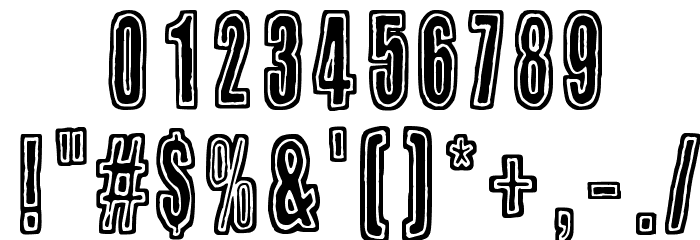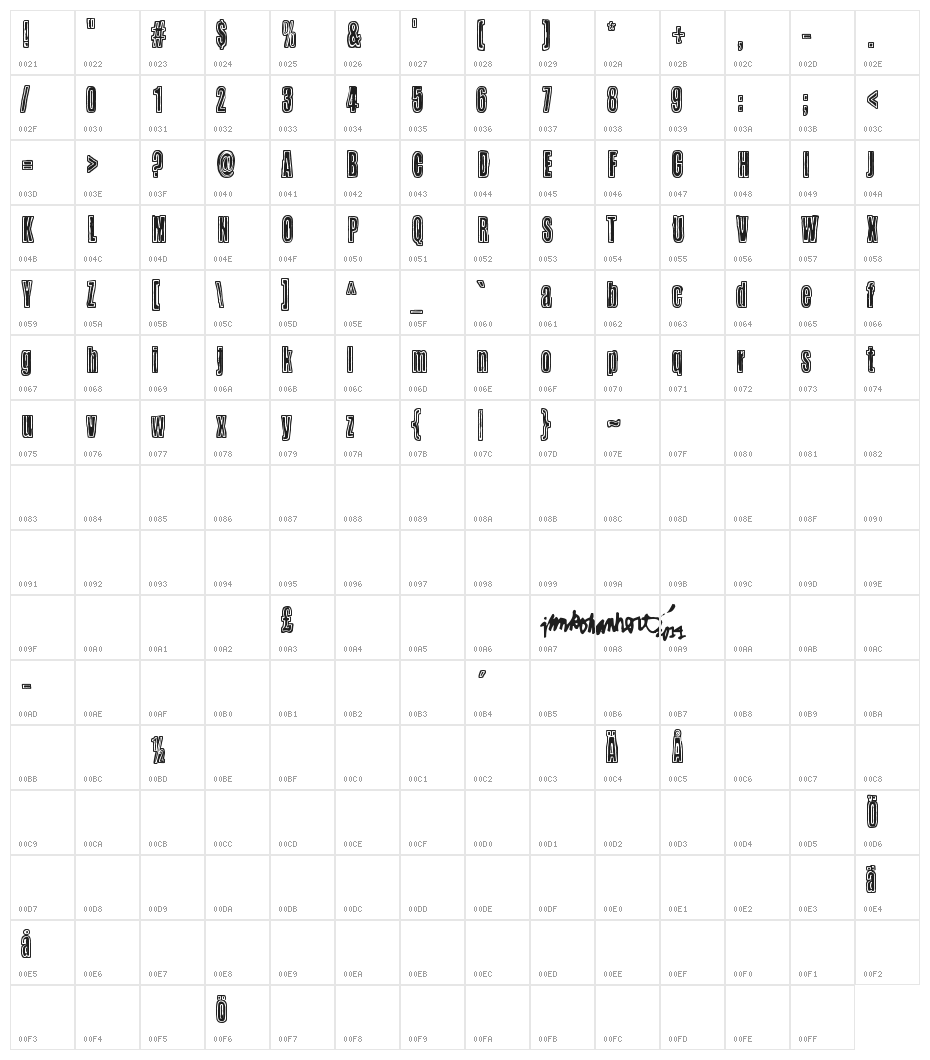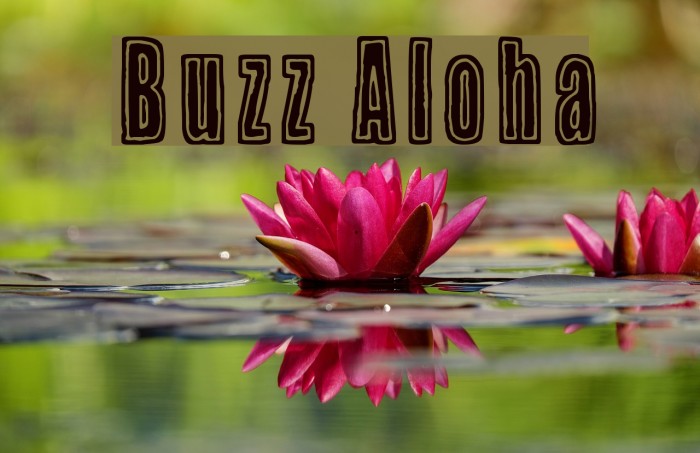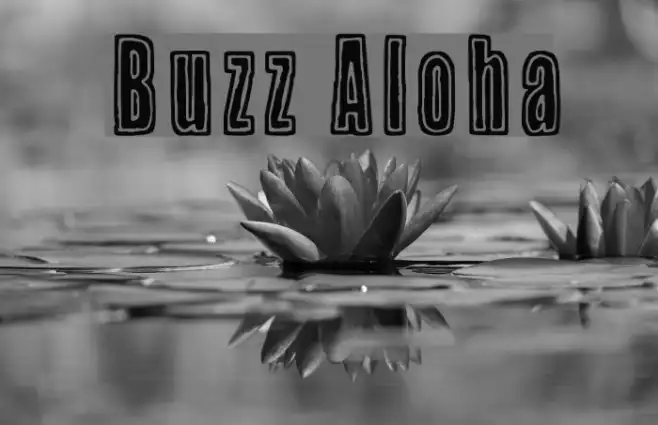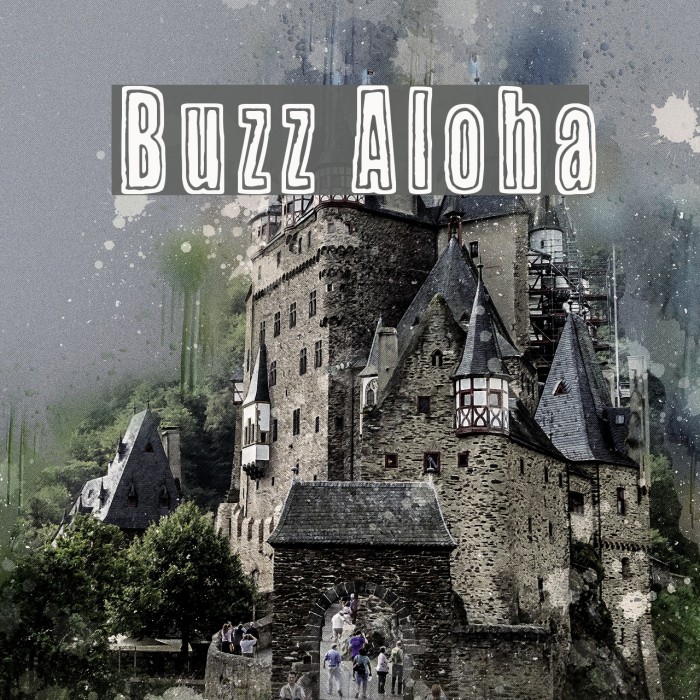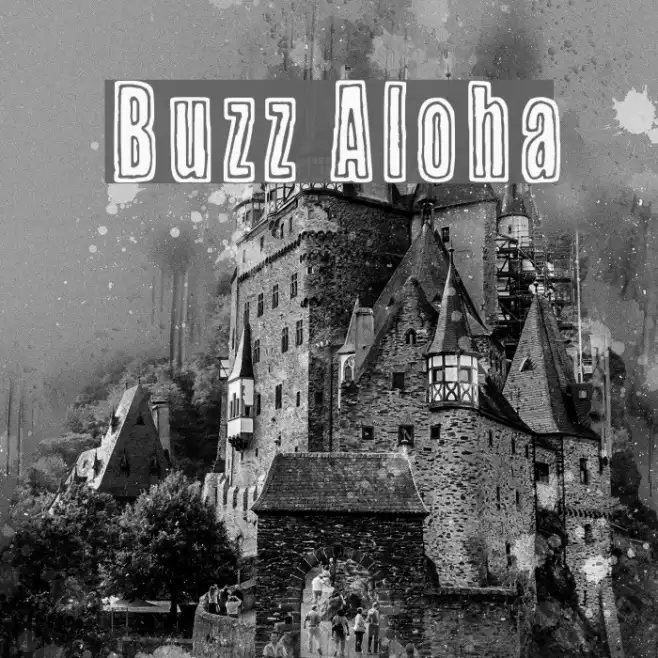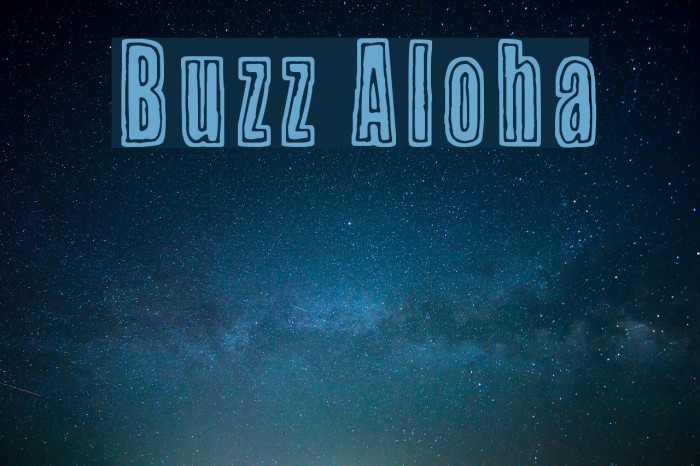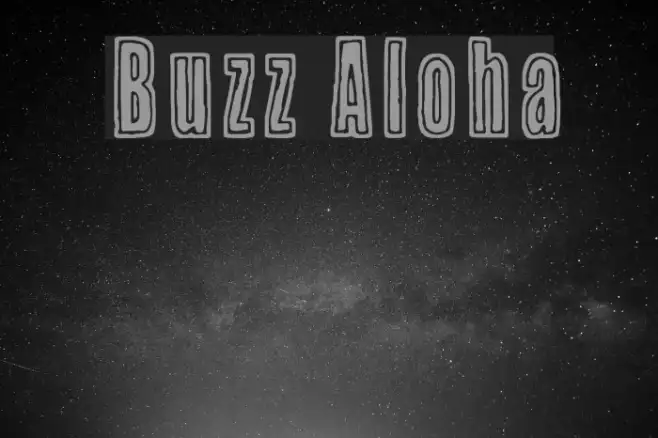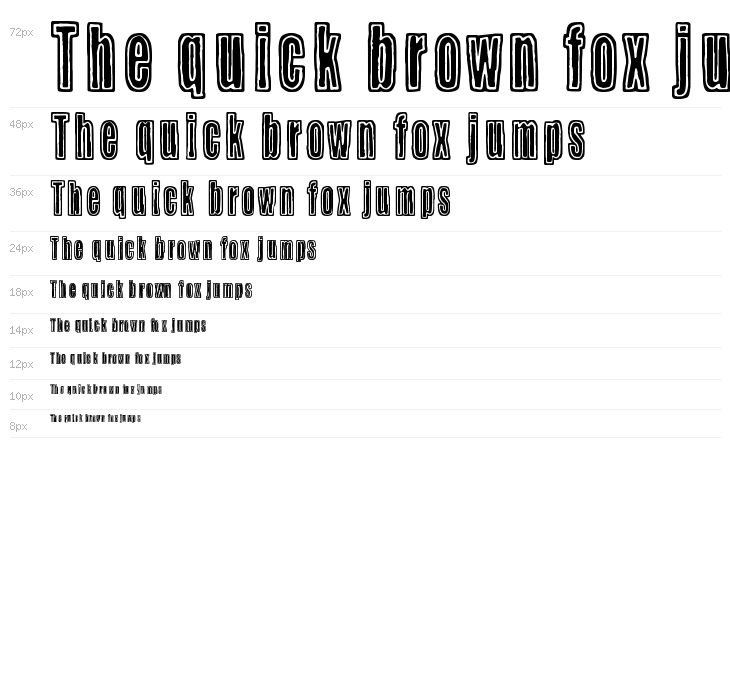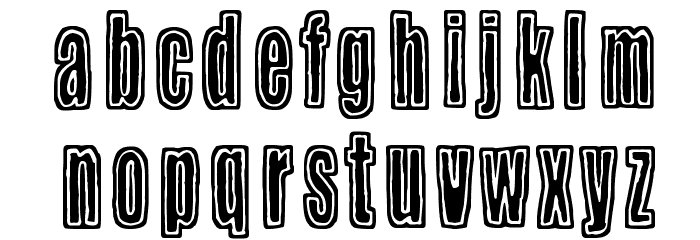
Buzz Aloha Font
Buzz Aloha Description
This font features a bold, decorative style with a unique outline effect that gives each character a distinct, hand-drawn appearance. The uppercase and lowercase letters maintain a consistent height, while the numbers and special characters follow the same stylistic approach. The font's playful and artistic design makes it stand out, with a slightly irregular stroke that adds to its charm. The characters are well-spaced, ensuring readability while maintaining a cohesive look. This font is ideal for projects that require a fun and engaging visual element.
| Proposed Projects | Perfect for posters, event flyers, children's book covers, and creative branding. |